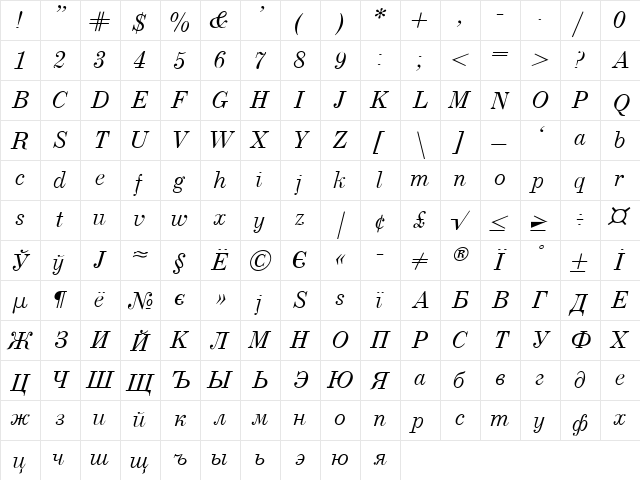
UsualNew Italic
Design Context for UsualNew Typeface
UsualNew takes a measured approach to typography — its balanced proportions and neutral character make it a reliable workhorse for both digital and print work. The slanted form adds forward momentum and visual energy.